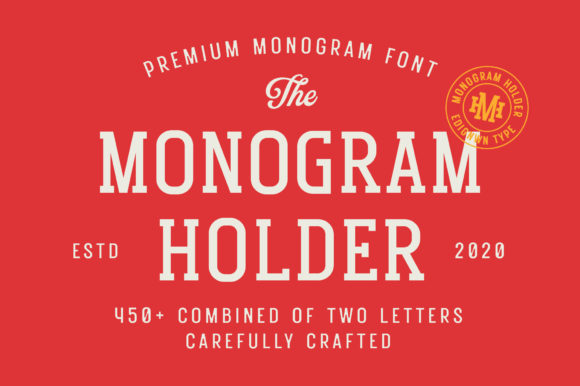
**Introducing Monogram Holder: The Epitome of Elegance and Simplicity**
In a world where visual aesthetics reign supreme, Monogram Holder emerges as a beacon of sophistication, beckoning you to embrace the allure of timeless beauty. This meticulously crafted serif font, hailing from the creative genius of Edignwn Type, exudes an aura of vintage charm that effortlessly elevates your designs to new heights of elegance.
**Unleash Your Creativity with Unparalleled Versatility**
With Monogram Holder, versatility knows no bounds. Its inherent adaptability seamlessly complements an array of design projects, from captivating logos and branding materials to enchanting wedding invitations and heartfelt greeting cards. Allow your imagination to run wild as you witness the transformative power of Monogram Holder, effortlessly enhancing your creative vision.
**Effortless Charm for a Touch of Distinction**
Experience the allure of simplicity as Monogram Holder graces your designs with its unassuming elegance. Its clean lines and delicate serifs evoke a sense of understated luxury, adding a touch of refinement to every project you undertake. Let Monogram Holder elevate your designs to new heights of sophistication, effortlessly capturing the essence of timeless beauty.
**A Font That Speaks to Your Heart**
Monogram Holder possesses an innate ability to connect with your audience on an emotional level. Its warm and inviting curves create a sense of intimacy and connection, inviting viewers to immerse themselves in the story you're telling. Whether crafting heartfelt messages or conveying important information, Monogram Holder becomes a conduit for your emotions, ensuring your designs resonate with your audience on a profound level.
**A World of Beauty Awaits**
Open the door to a world of creative possibilities with Monogram Holder. Its PUA encoding grants you effortless access to a treasure trove of glyphs and swashes, empowering you to unleash your creativity and add intricate details that bring your designs to life. Explore the boundless potential of Monogram Holder and discover the endless possibilities that await your artistic vision.
**Embark on a Typographic Journey Like No Other**
With Monogram Holder as your trusted companion, embark on a typographic journey that will redefine your creative horizons. Its timeless appeal ensures that your designs will stand the test of time, while its versatility empowers you to explore diverse styles and themes with unwavering confidence. Let Monogram Holder be your guiding light, illuminating your path towards typographic excellence.